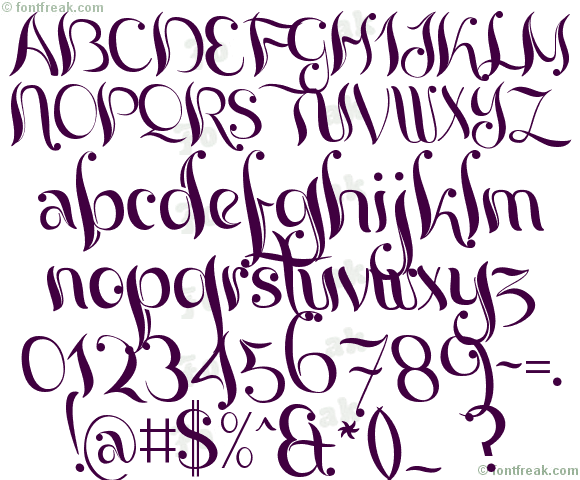
Yoghurt
Yoghurt is a captivating display font designed by Mans Greback, categorized as a decorative typeface that exudes charm and personality. This font showcases a unique blend of fluid, hand-drawn characteristics that give it an inviting and whimsical feel. The stroke weight varies throughout the letters, offering a delightful balance between thick and thin lines, while the smooth curves and playful flourishes add an artistic touch. The spacing is well-considered, ensuring readability without sacrificing style, making it an excellent choice for various applications.
The Yoghurt font is ideal for a range of creative projects. Its distinctive visual appeal makes it perfect for wedding invitations, where a personal and elegant touch is essential. Additionally, it can enhance the aesthetic of restaurant menus, providing a warm and inviting atmosphere for diners. Graphic designers may find it suitable for branding projects, particularly for businesses in the food and beverage sector, where the font can evoke a sense of homemade goodness. Furthermore, Yoghurt is an excellent choice for social media graphics and promotional materials, helping content creators capture the attention of their audience with its unique flair.
What truly sets Yoghurt apart is its ability to convey warmth and creativity, making it a standout choice for those seeking a distinctive and engaging typeface. Its playful elegance invites viewers to linger, ensuring that your message is not only seen but also felt.